Questions for Font Creators Part 5: Favorite Latin Alphabet Glyph
The question “What is your favorite Latin alphabet glyph?” was asked to staff at the Type Project.
Through the last article, favorite Japanese glyphs, such as kanji and kana, were asked about. In this article, the favorite glyph for the Latin alphabet is asked.
Many of them choose “a” and “g” as answers.
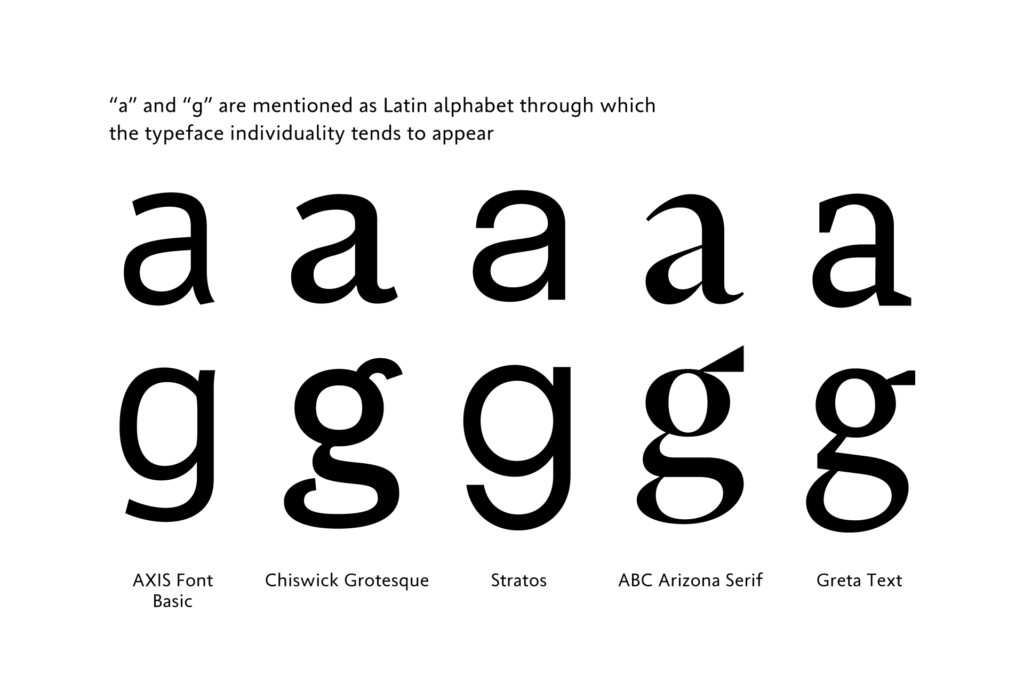
- “g”:
I enjoy both looking and creating this glyph, as there are many features with variations, so I can add or subtract many things.
- “G,” “S,” “a,” “g,” and “j”:
It is obvious to say how it looks during typesetting is important. As these characters have many highlights in one form, they tend to show the typeface features and the capacity of creators.
- “R,” “Q,” and “g”:
I like their forms, and I think that the design features appear or apply well in these alphabets.
- “R,” and “a”:
The are many elements that can be arranged, such as the counter size, length of brushstroke, etc. As “a” in particular is frequently used as a vowel, it is a glyph that can show typeface individuality easily.
- “g”:
It is not related to the shape, but I liked when I learned about the way of calling it “two-story” and “spectacles.”
- a:
It appears in the beginning at the time of creation.
Many answer reasons included: there are many design elements, so it is easy to show individuality and make it a feature of the typeface. In fact, “a” and “g” have variations in the structure itself, such as one-story, two-story, etc., and they are distinctive glyphs with multiple, easy-to-arrange elements.
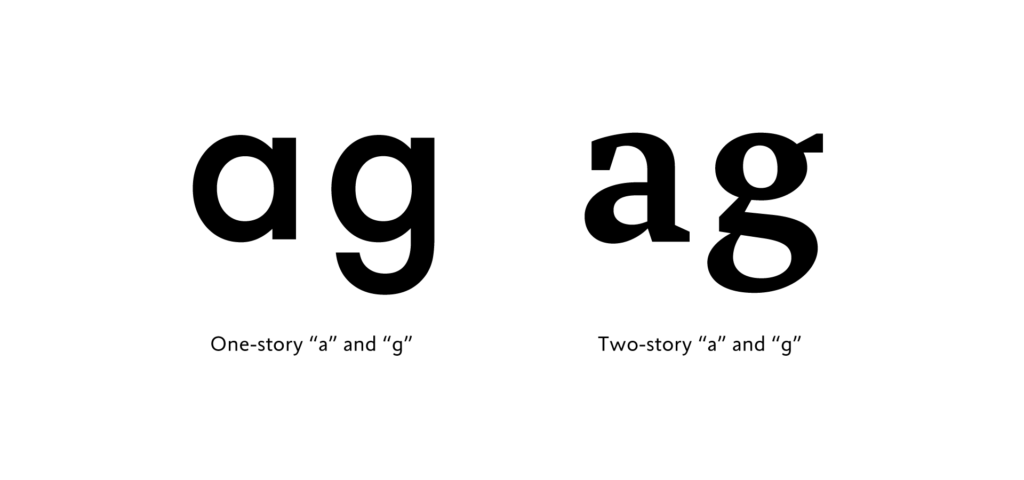
In the Latin alphabet, there are many glyphs with shapes in which the part of the same shape is repeated in the pattern. Among them, glyphs with peculiar elements are eye catching, which can be understood from the other mentioned glyphs.
- “Q,” and “G”:
They look like decorated “O” and “C,” so they are fashionable.
- “k”:
I often see it in the initials of names.
- “i”:
I like the “i” in Garamond Italic.